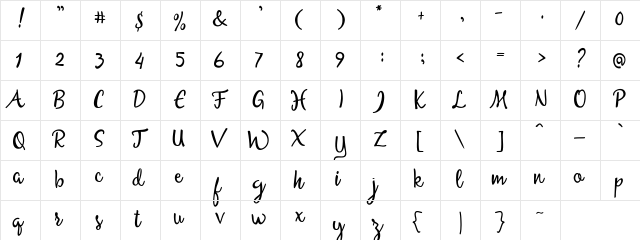
Allessa Script Free Sample Regular
| Foundry | Queentype |
| Designer | queentype |
Design Context for Allessa Script Free Sample Typeface
Allessa Script Free Sample flows with the natural rhythm of handwritten lettering, making it ideal for designs that call for warmth and personal expression.
Font Pairing: Combine Allessa Script Free Sample with a simple geometric sans for maximum contrast — the tension between flowing curves and clean structure is a classic typographic pairing.
Pro Tip: Use Allessa Script Free Sample for short runs of text — names, titles, or taglines. Extended body copy in script faces tires the eye quickly.